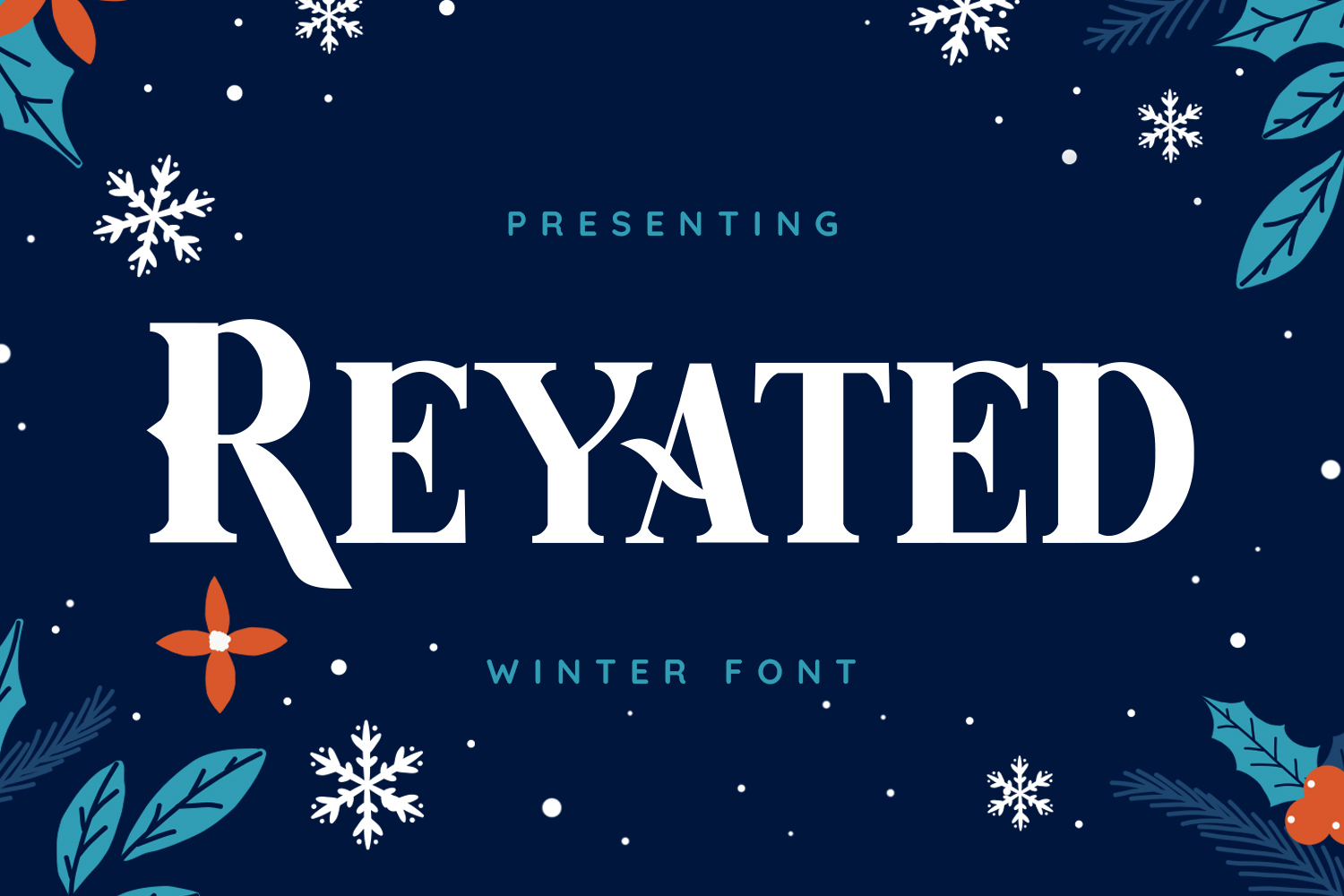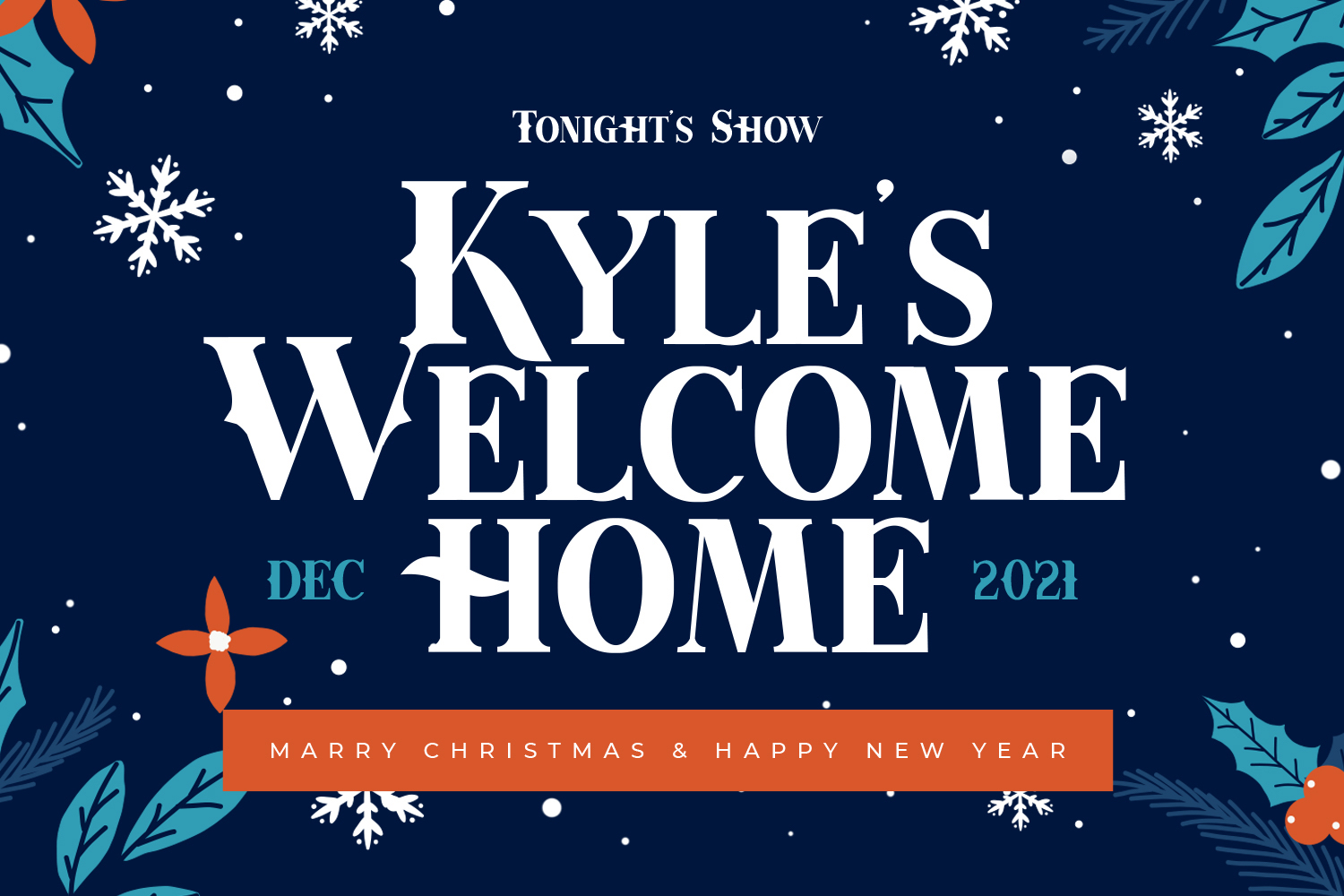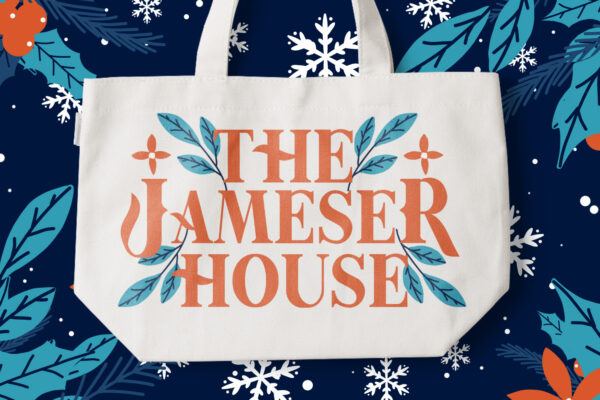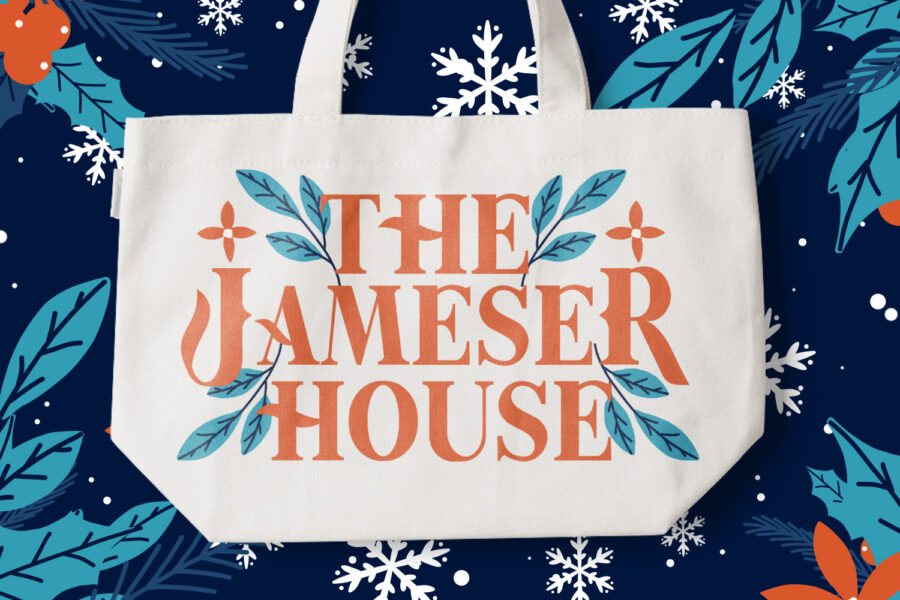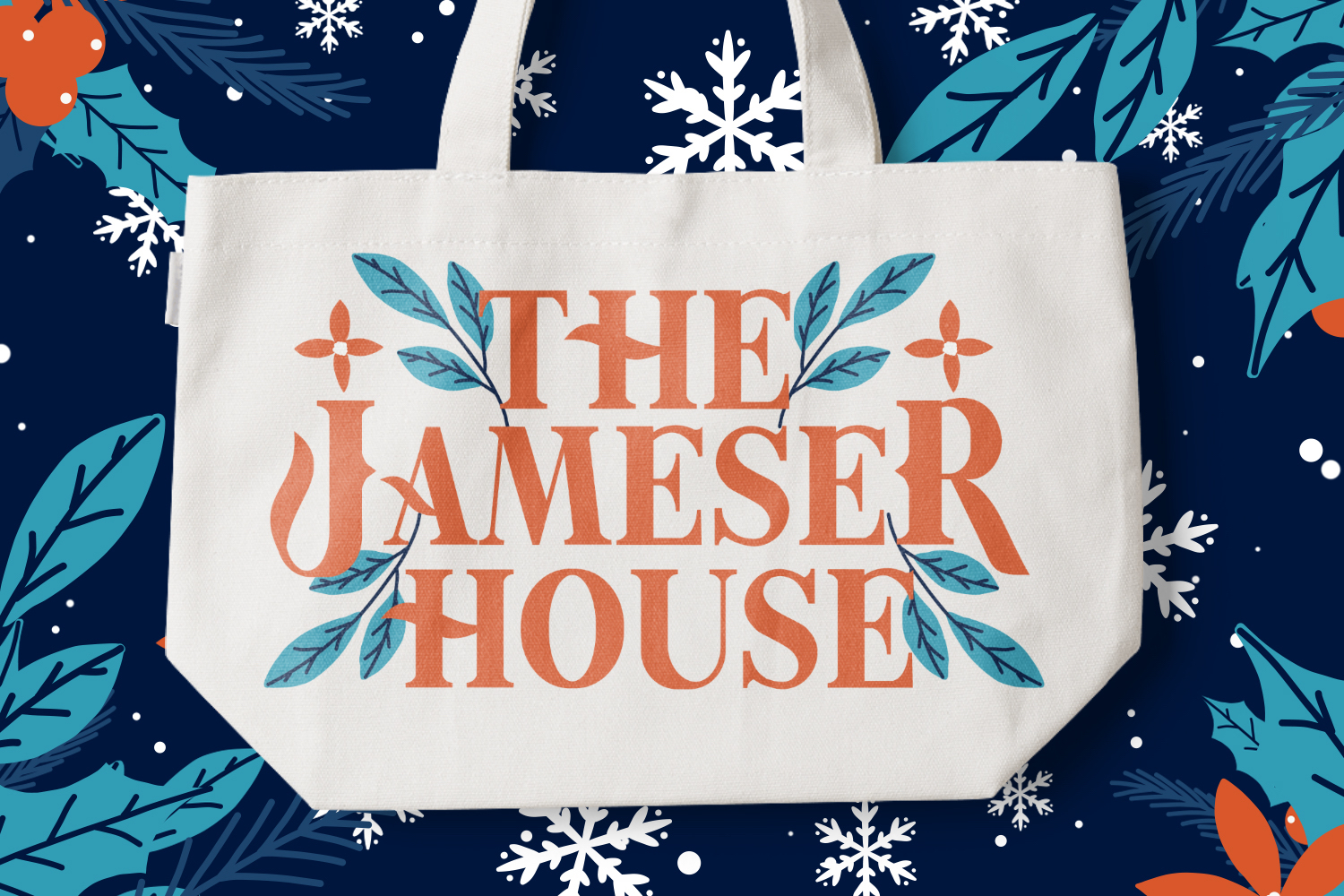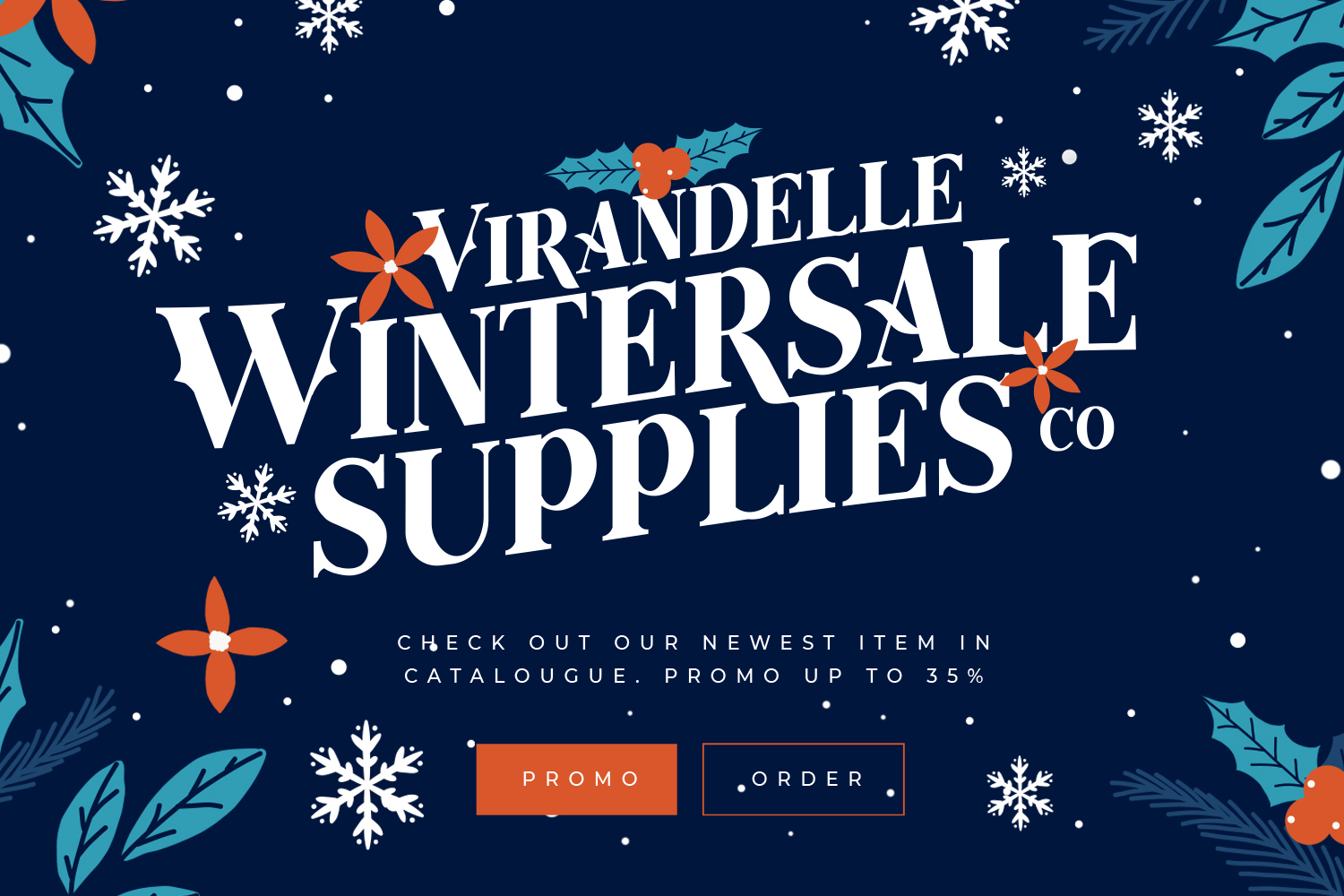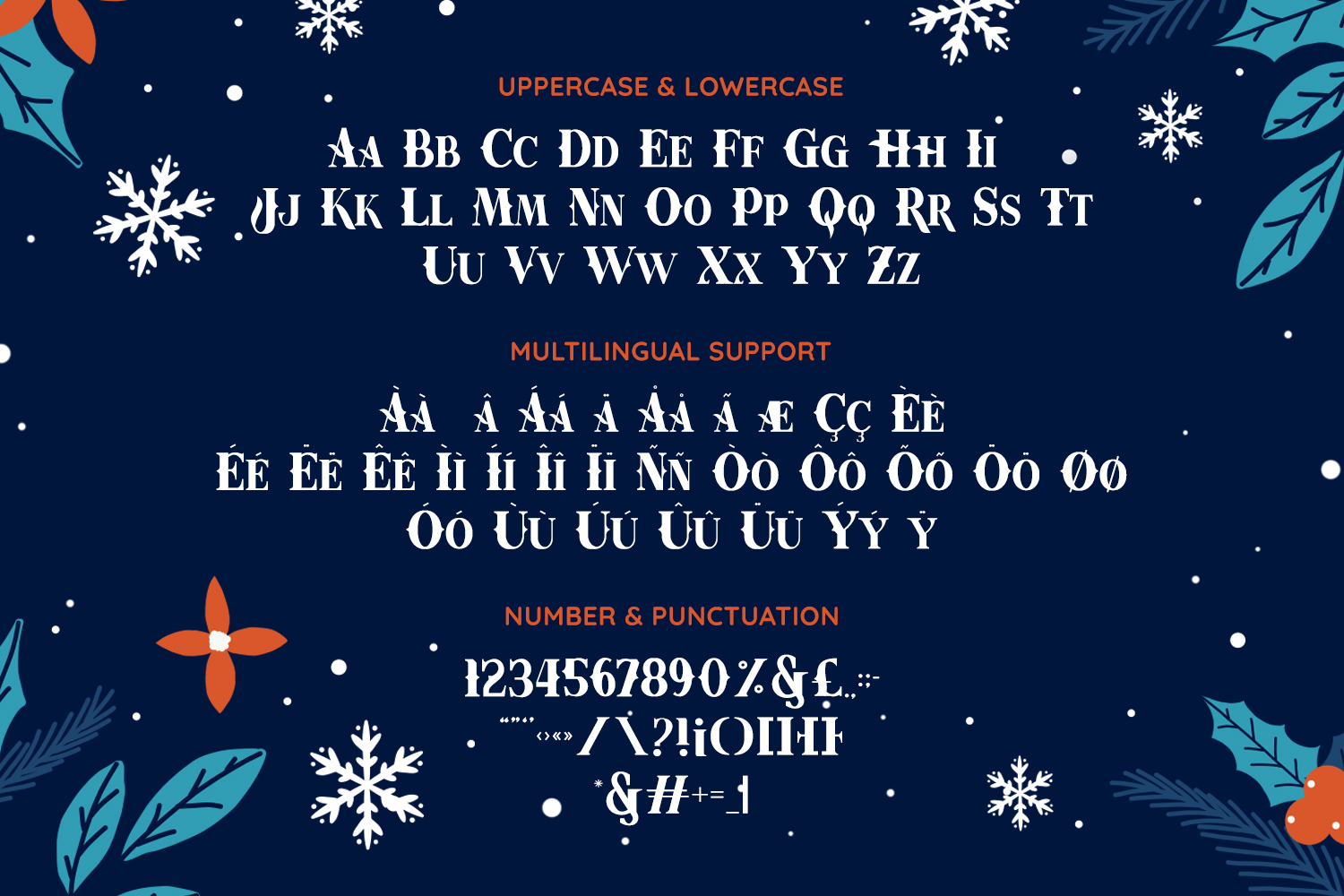
Reyated
Reyated is a stylish serif display font designed to bring a touch of winter elegance to your holiday projects. With its sharp curves, dramatic contrast, and uniquely curved letterforms. This font evokes both sophistication and seasonal charm. Whether you’re creating packaging, event invitations, or branding for festive campaigns, Reyated delivers a high-end look with subtle flair.
Its refined structure and multilingual support make it suitable for international use, while the classic serif style lends well to editorial layouts, tote bags, seasonal signage, and more. Reyated is perfect for those who seek a balance between modern style and timeless beauty in their winter or Christmas-themed designs.